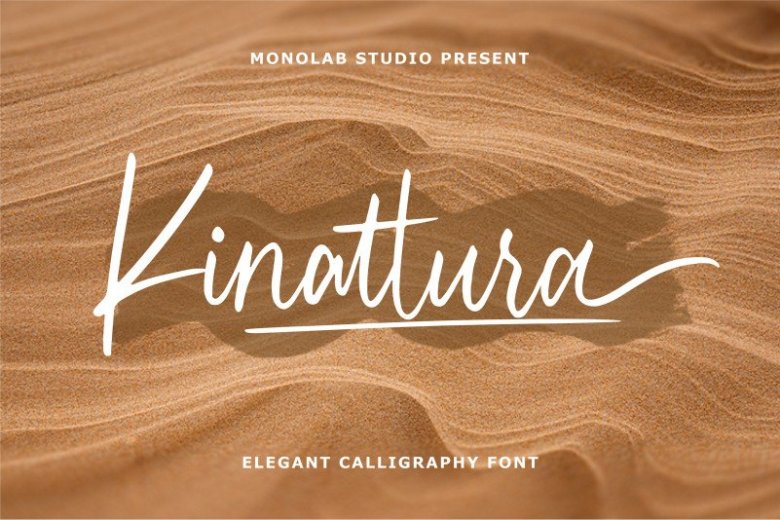
Kinattura Script Font
Say Hello Guy’s. Thank you for looking Kinattura Font. This is a cool and clean handwritten font featuring alternates, a modern font can make your text appear elegant, luxurious, and modern! Kinattura Script Font is an elegant calligraphy font that is suitable for branding, signature, wedding invitation, promotion, product packaging, and other needs.
This font is modern, simple, but still authentic. You will get full set of lowercase and uppercase letters, numerals and punctuation, multilingual symbols, lowercase beginning and ending swashes, ligatures and extra swashes.